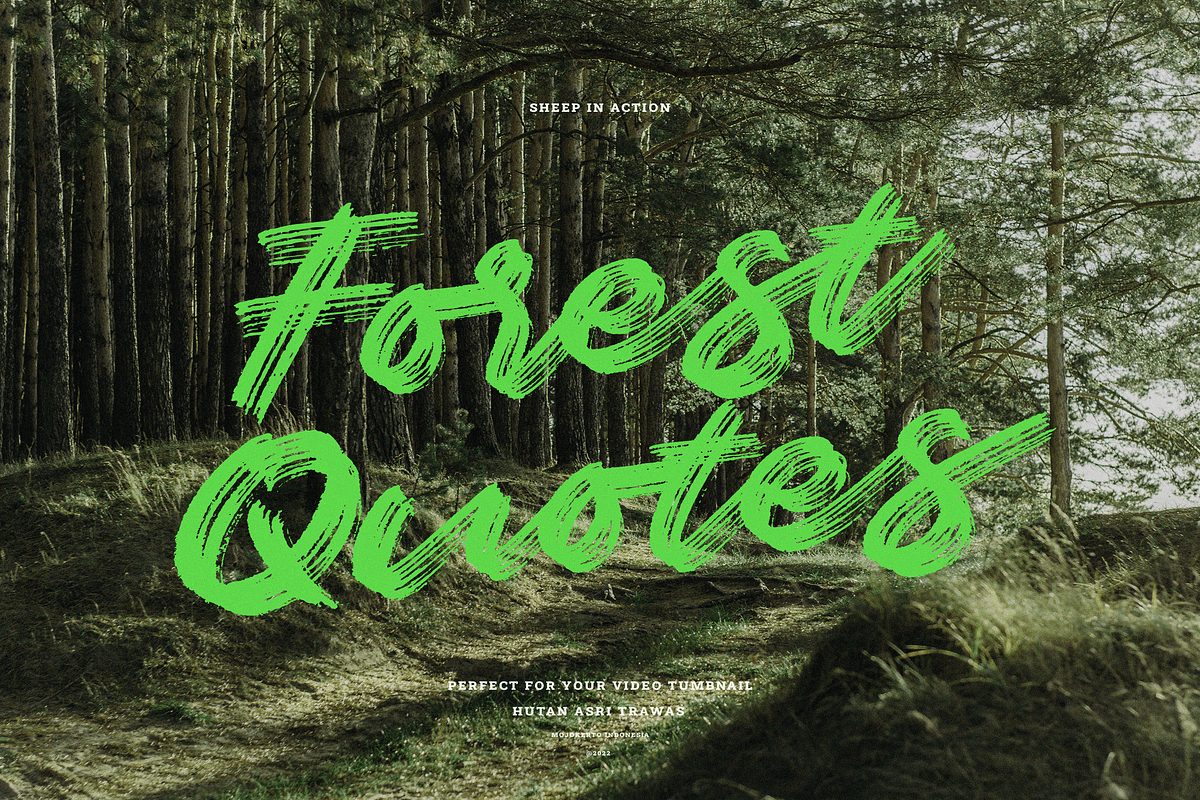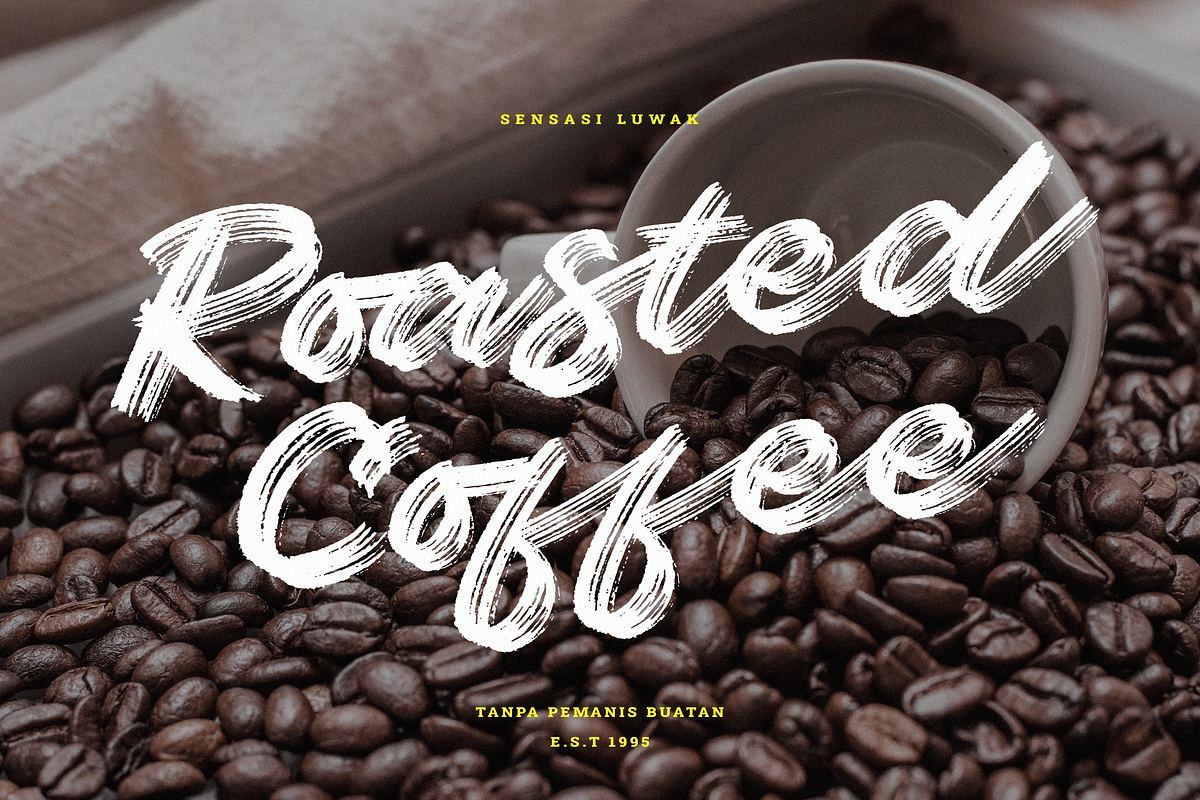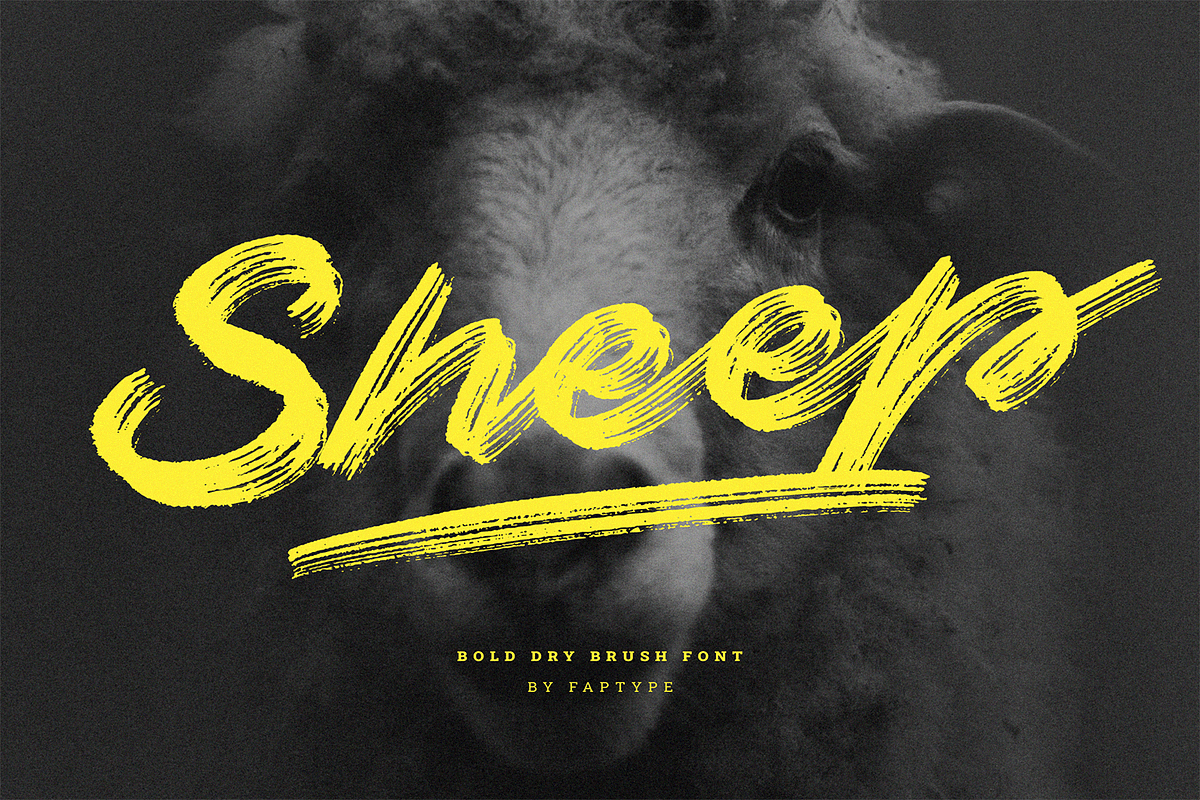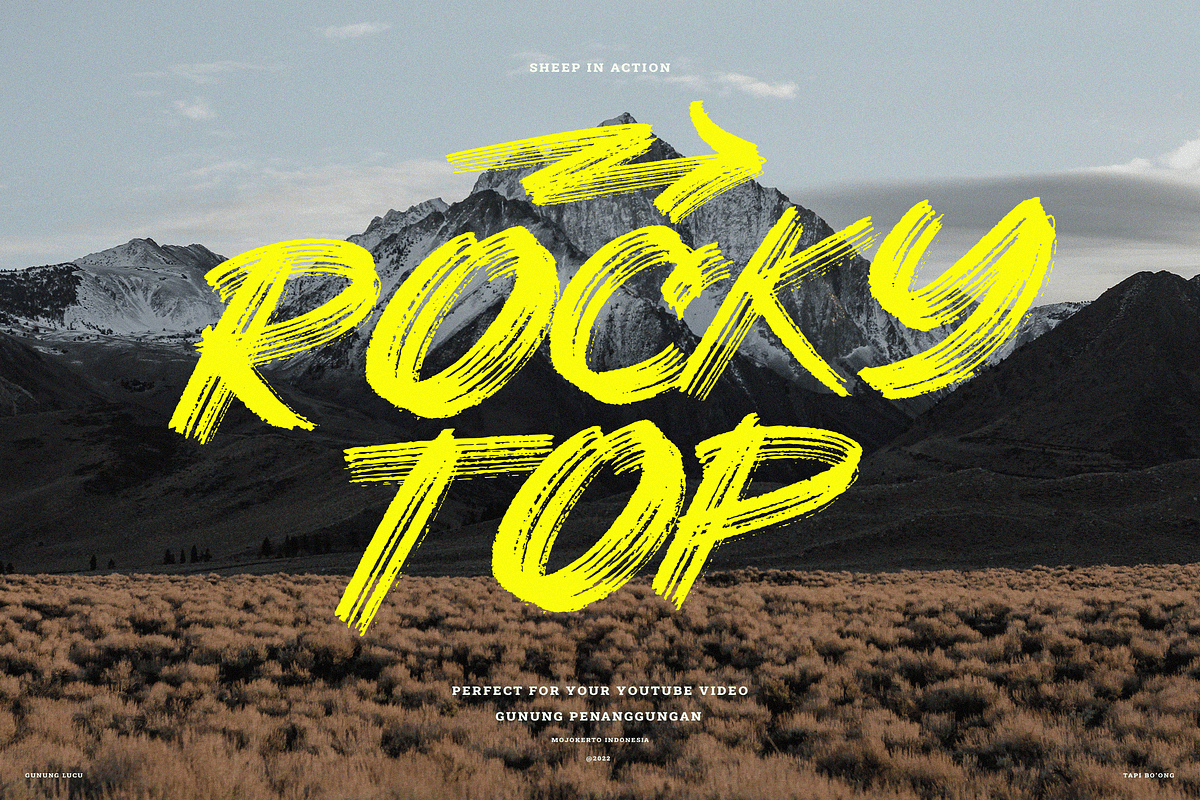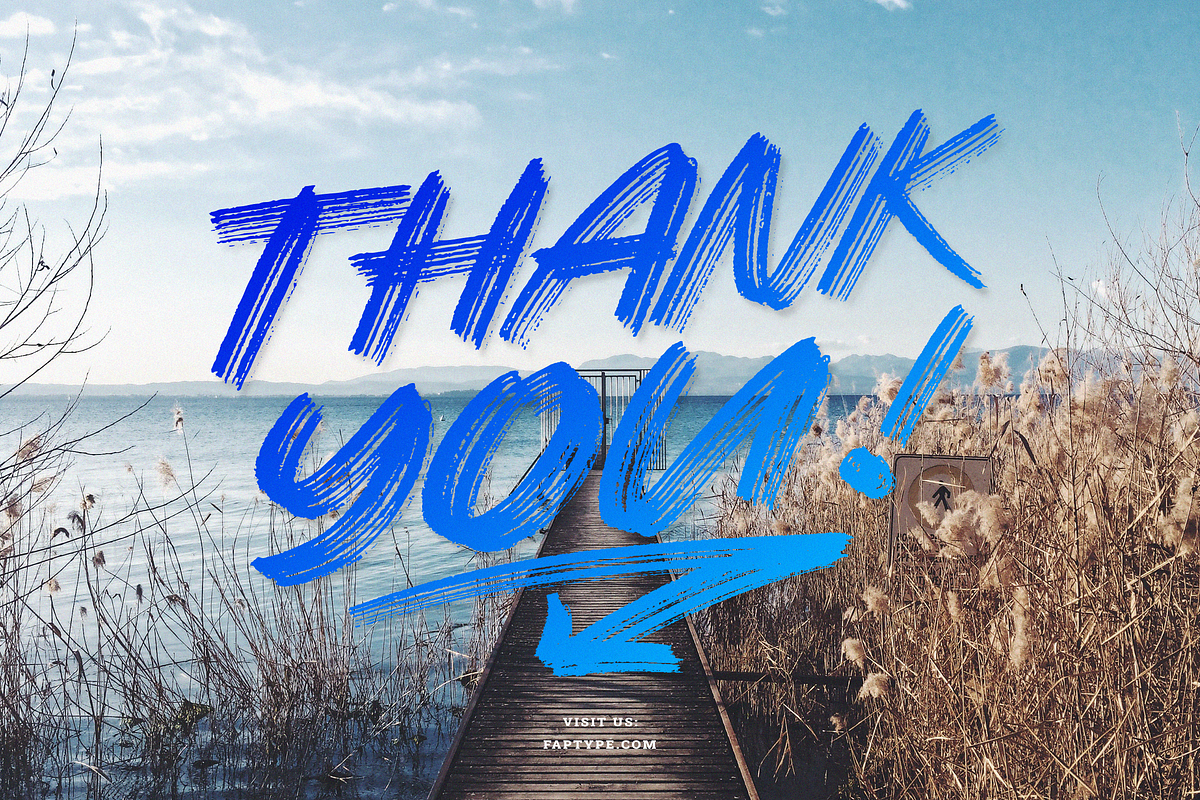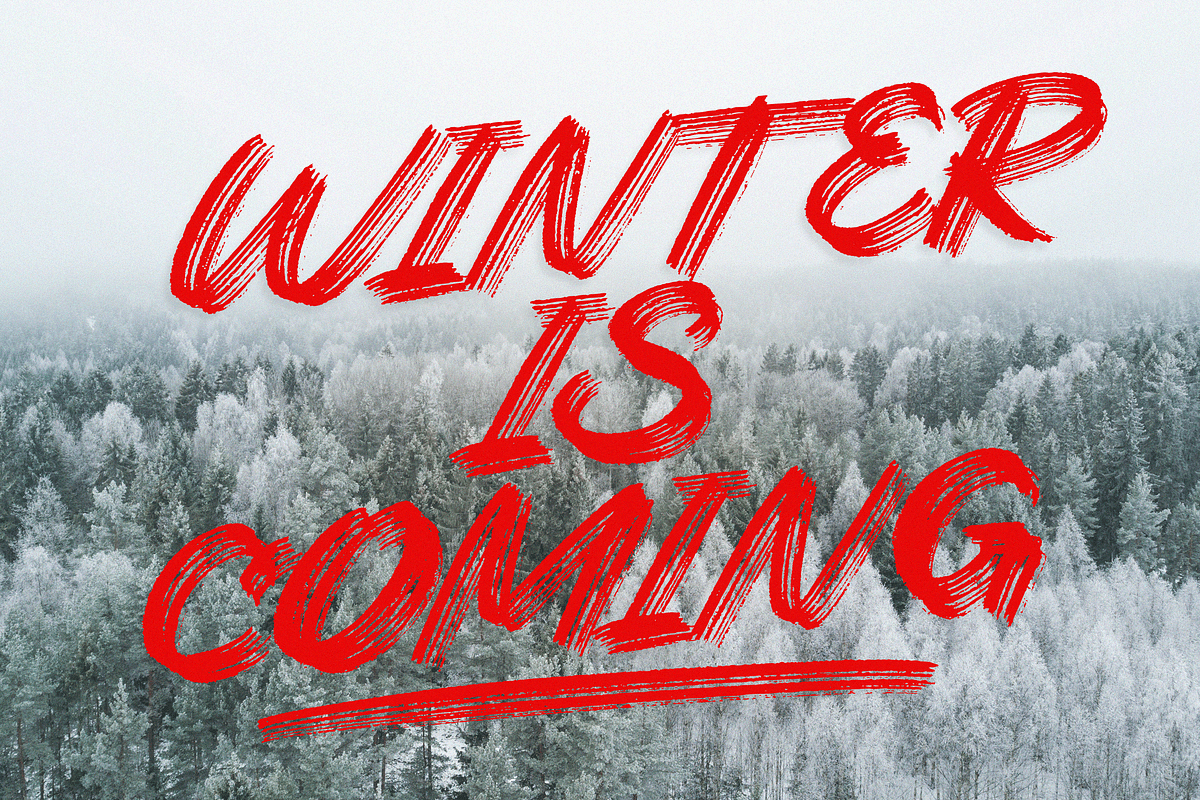
Sheep | Dry Brush Script Font
Introducing Sheep, a unique script dry brush handmade brush font created using realistic brush strokes including consistent textures & letter forms to give you the same look & feel as a real brush would! Each character in this font was hand drawn to give an organic feel and maintain authenticity.
Sheep features:
- A full set of upper & lowercase characters
- Multilingual language support
- Dozen of Swashes
- OpenType Features